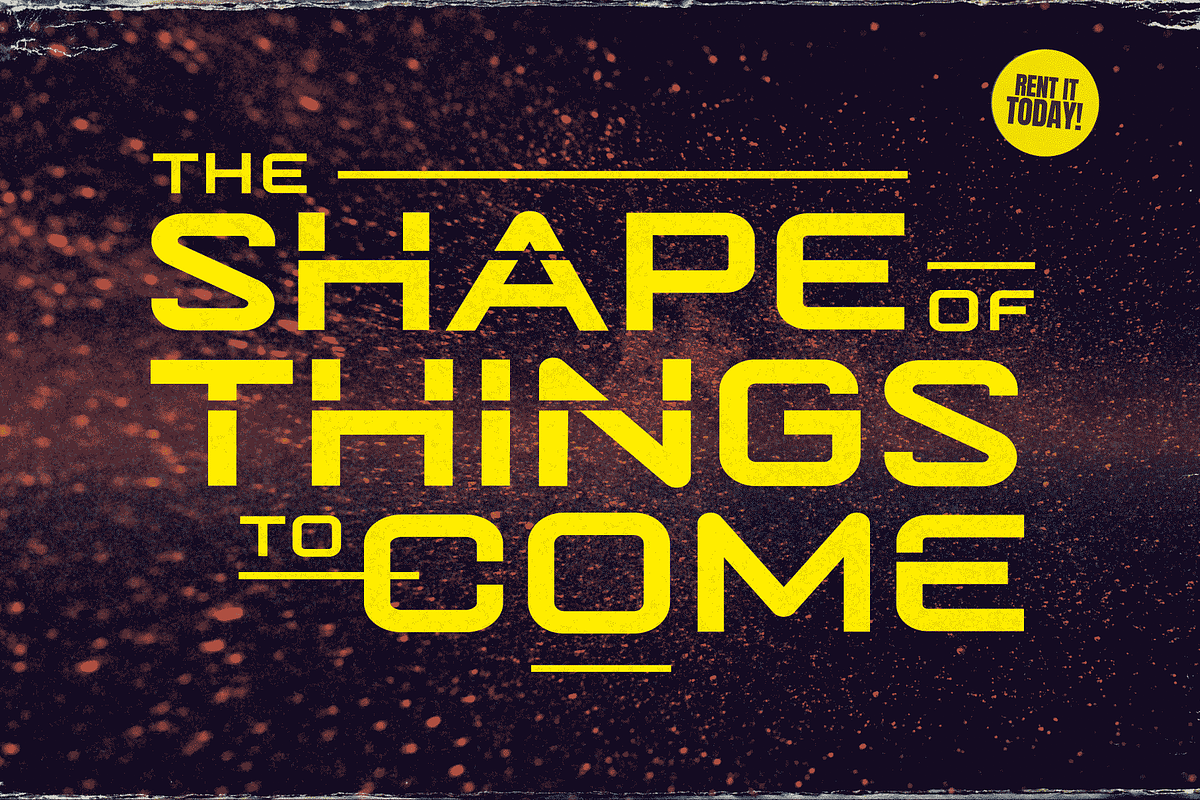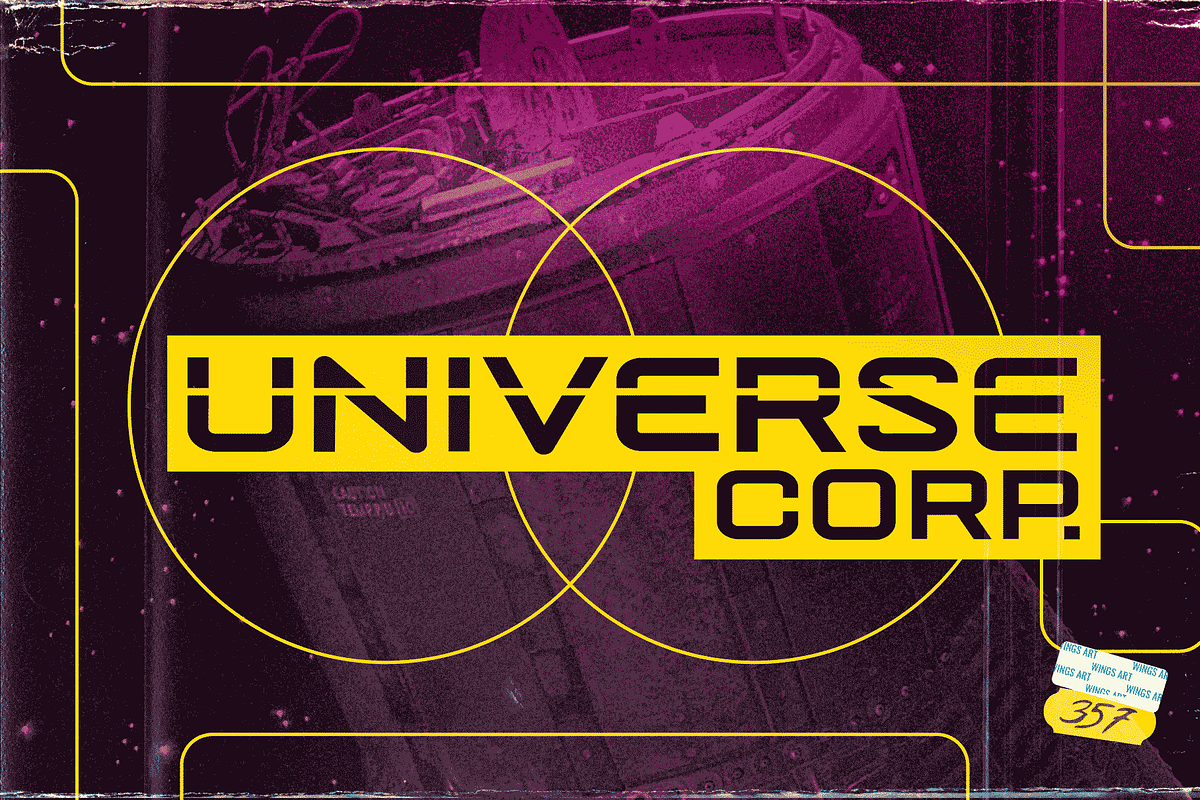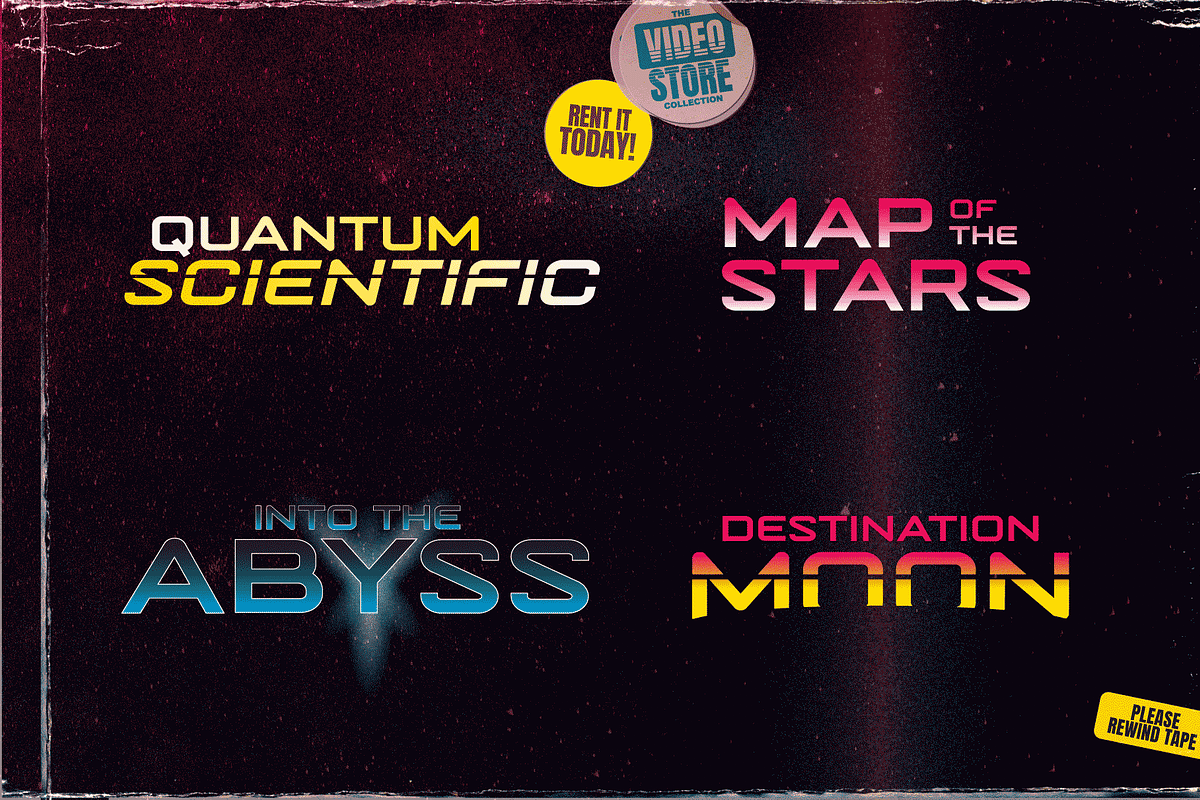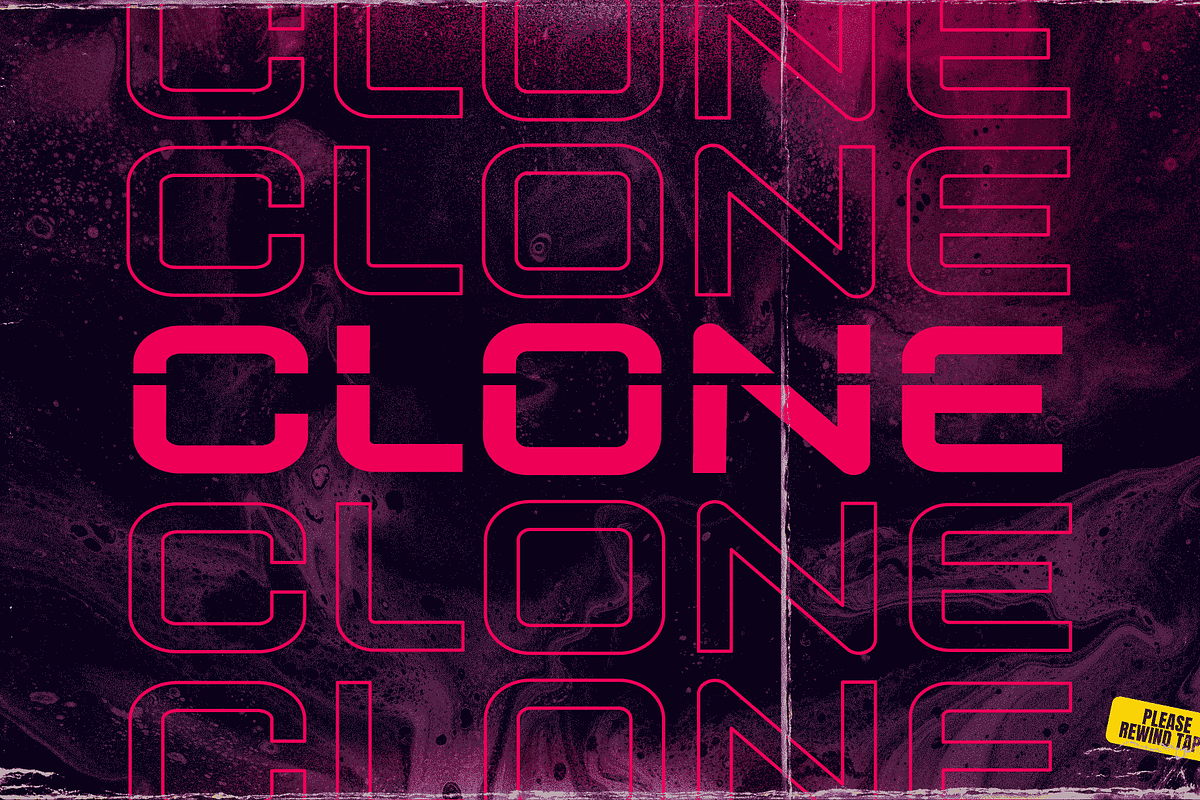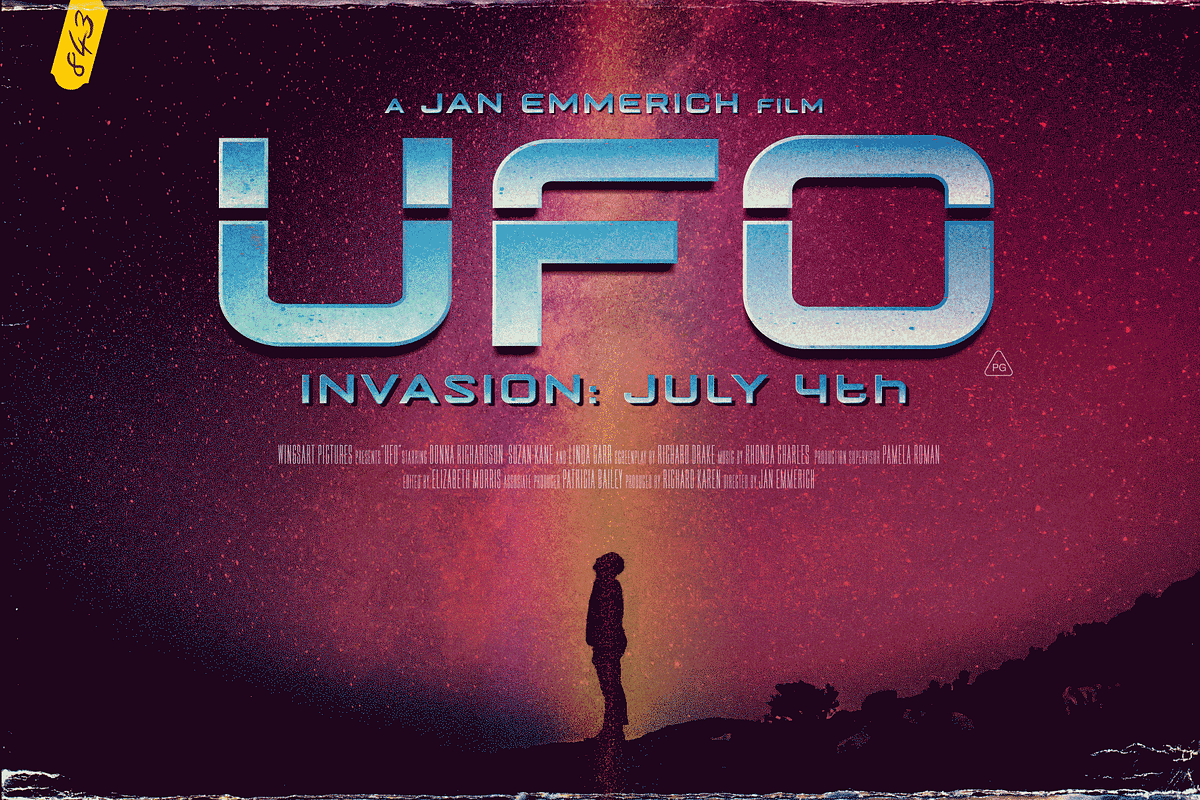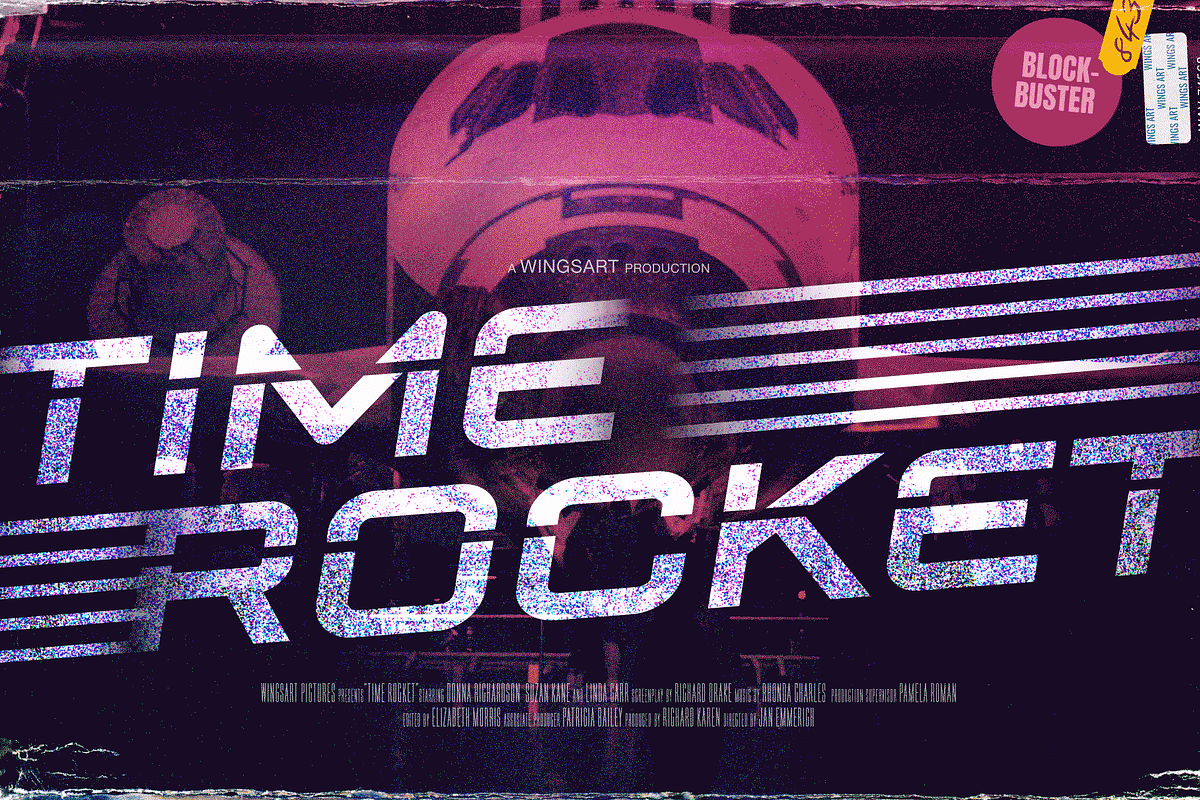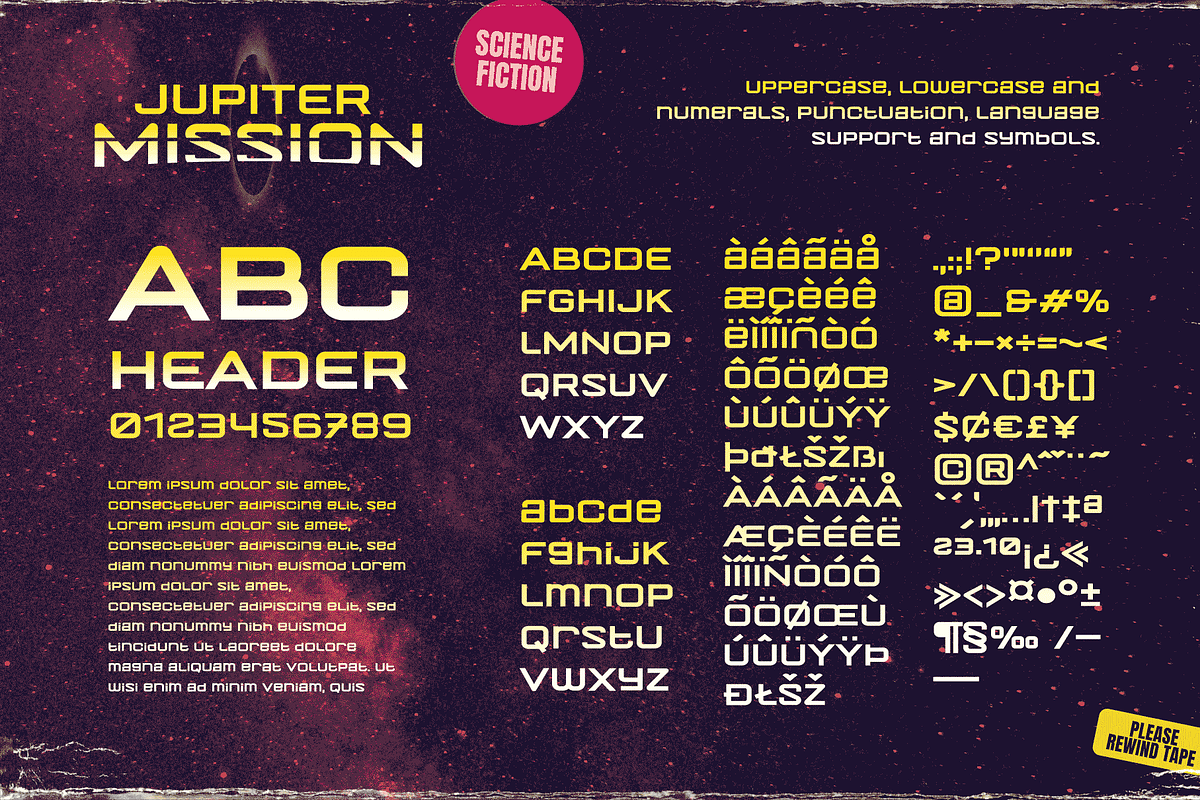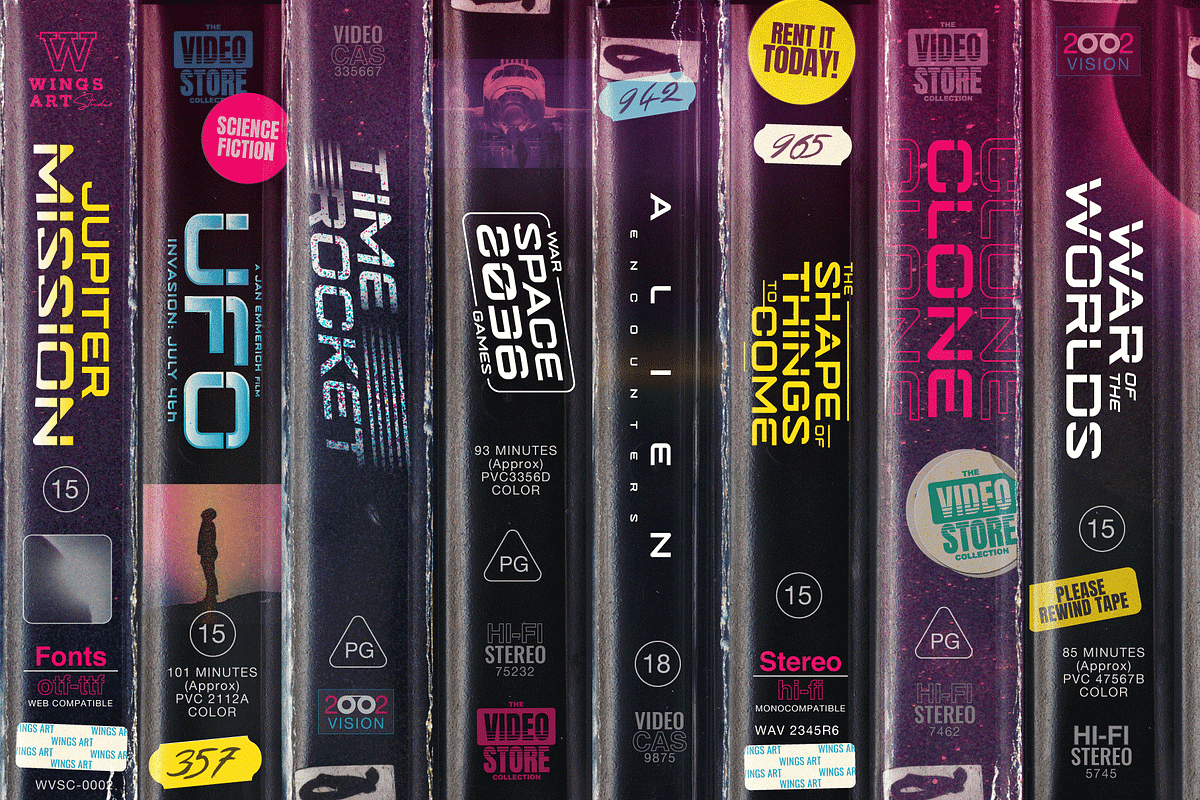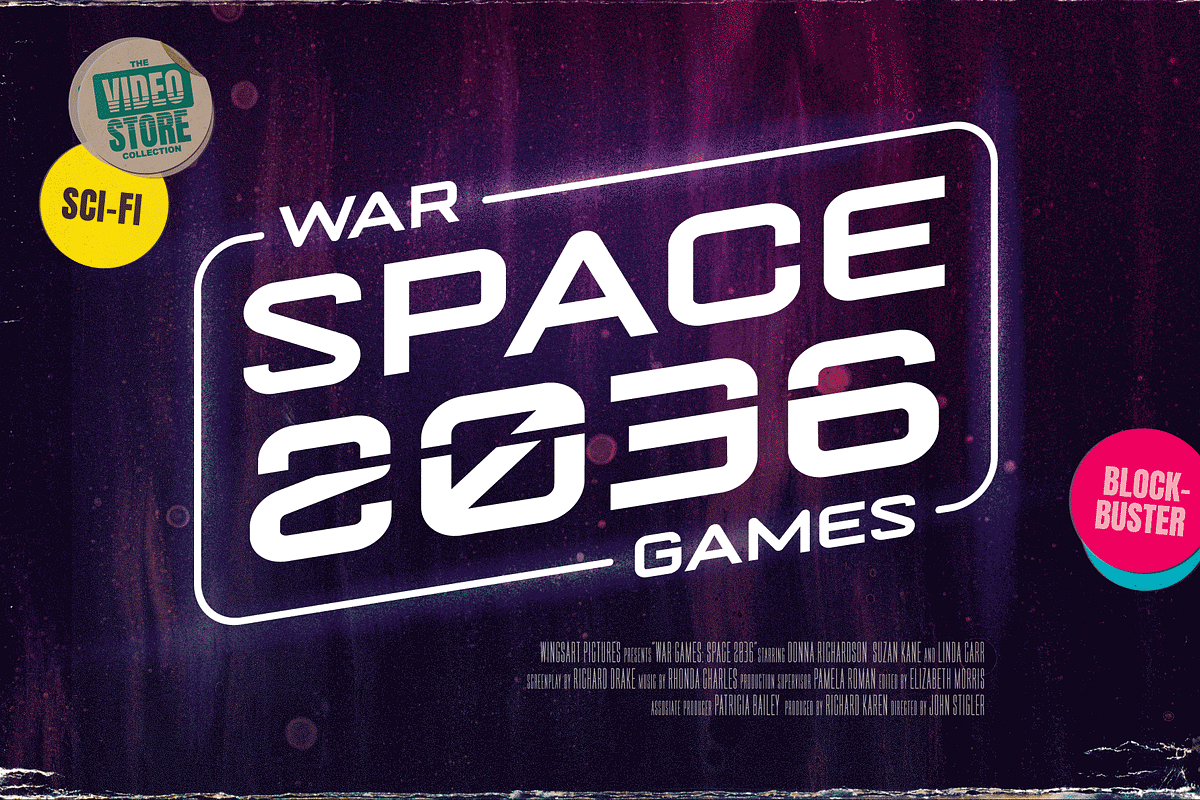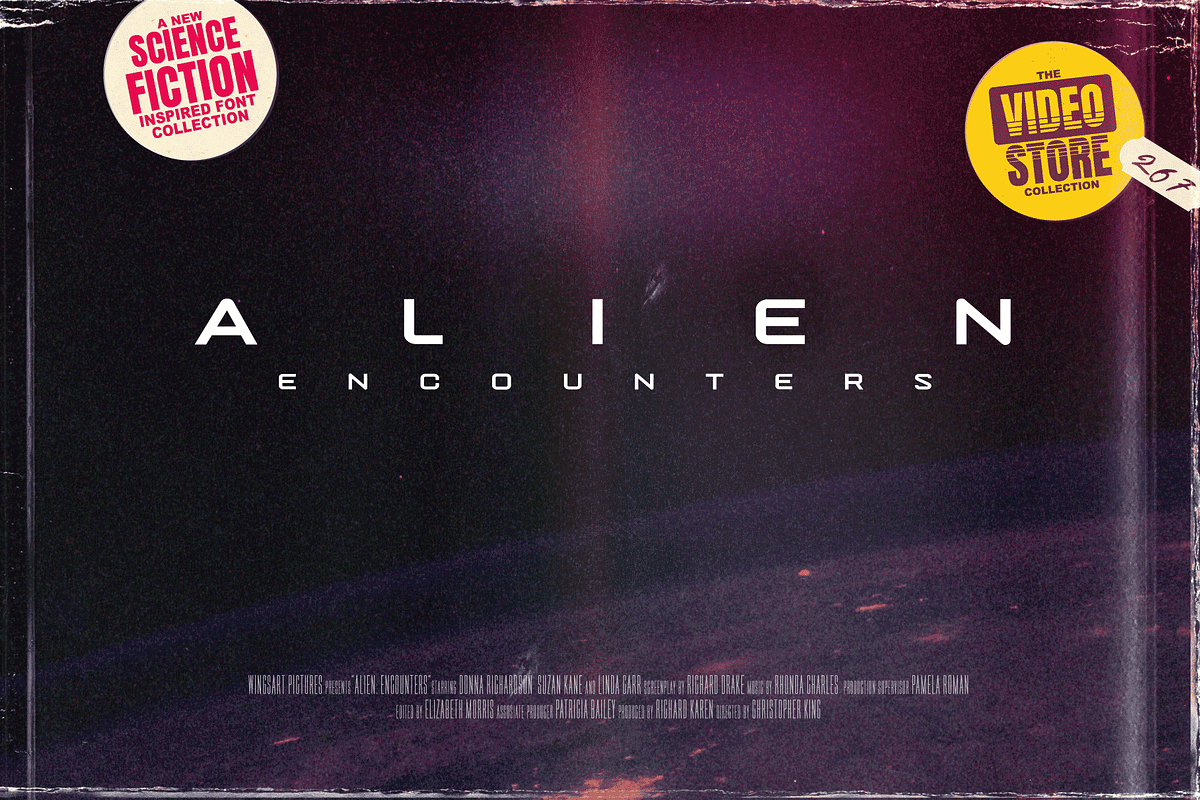
Jupiter Mission: A Retro Sci-Fi Font
Jupiter Mission: A Science-Fiction Font Spectacular by Wingsart Studio
Jupiter Mission is a futuristic font family inspired by science-fiction movies and TV shows. It promotes the spirit of adventure and space exploration with a design aimed at recapturing the excitement of childhood movie nights and VHS video covers. It is at once cool and serious, retro and modern. It’s clean look is suitable for large headlines and small infographics and works great for sci-fi movie titles, production design elements, technology articles, video games and much more.
Regular and Italic styles are included with additional Sliced versions when you need an extra futuristic flourish. It features unique uppercase and lowercase characters, along with numerals, punctuations and language support.